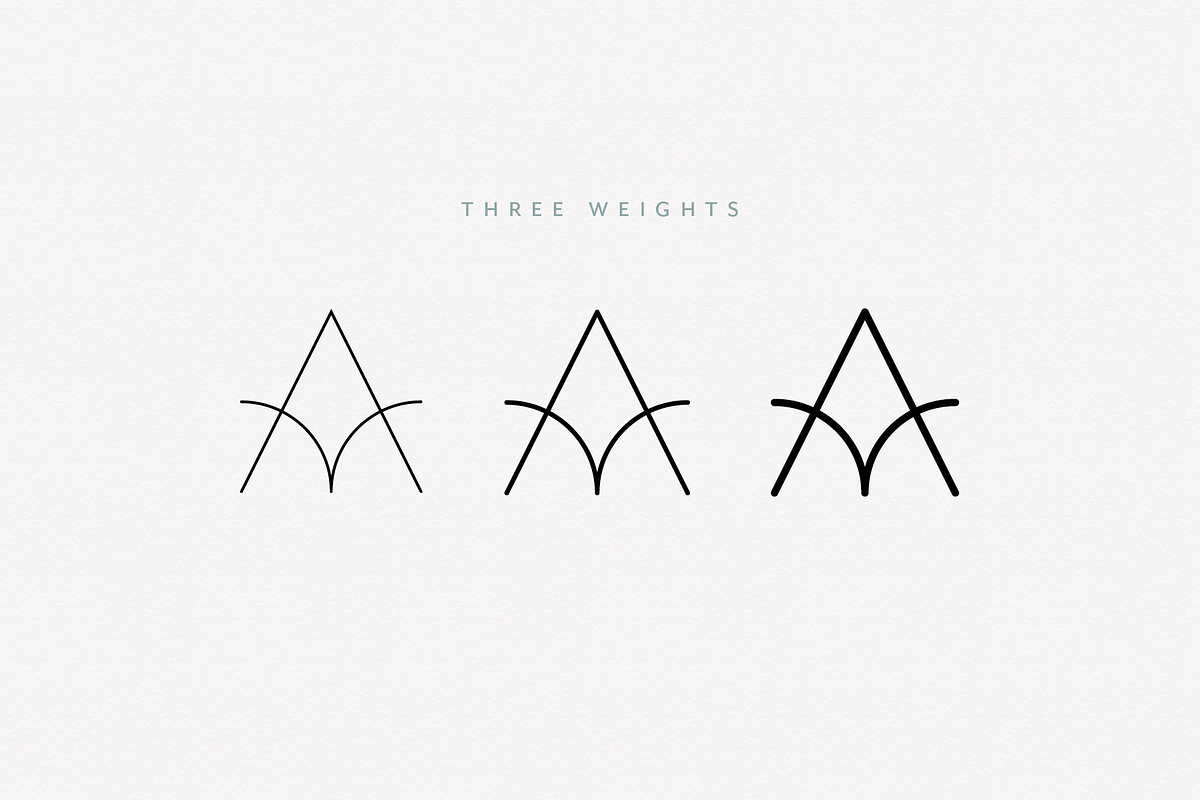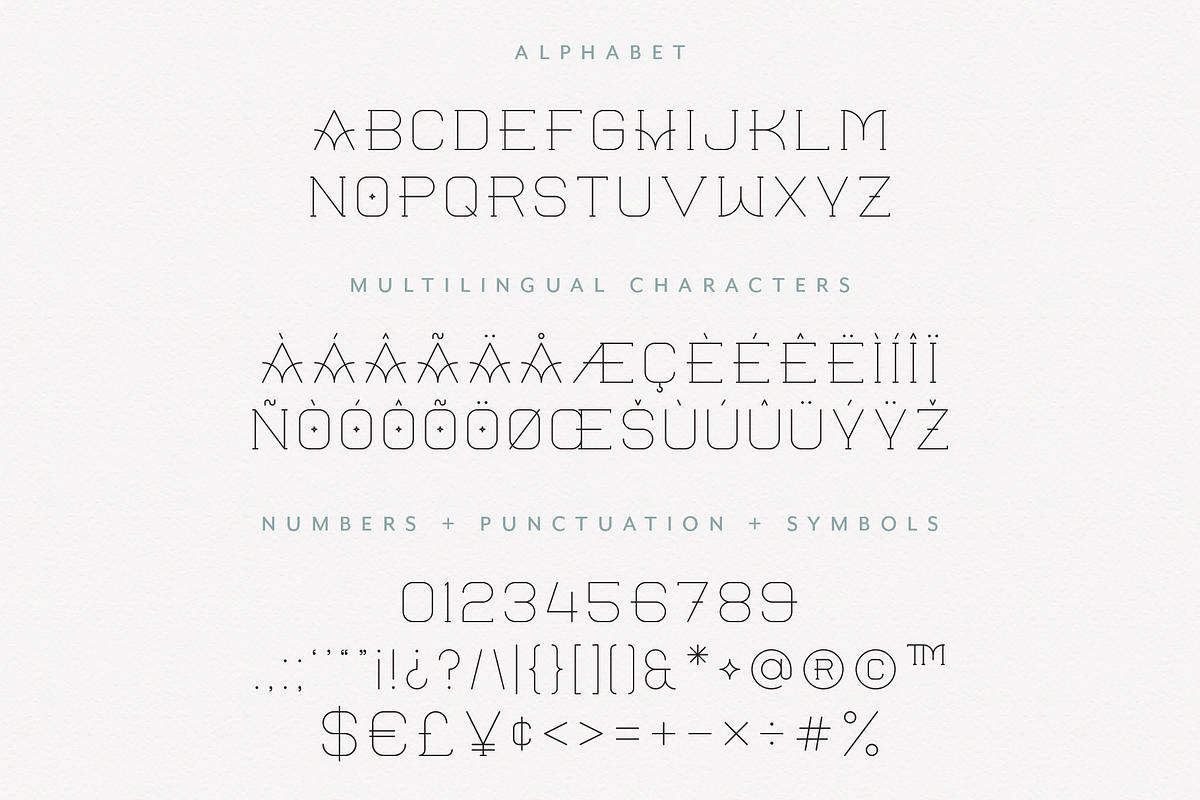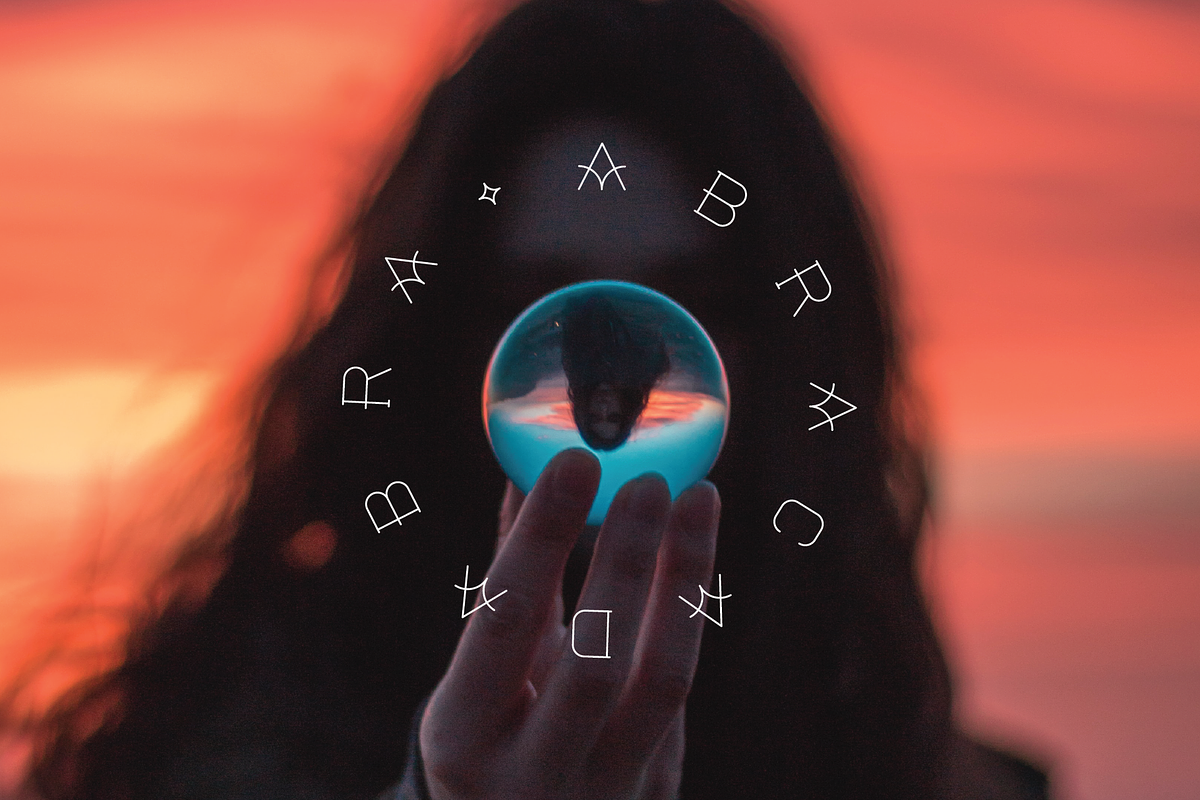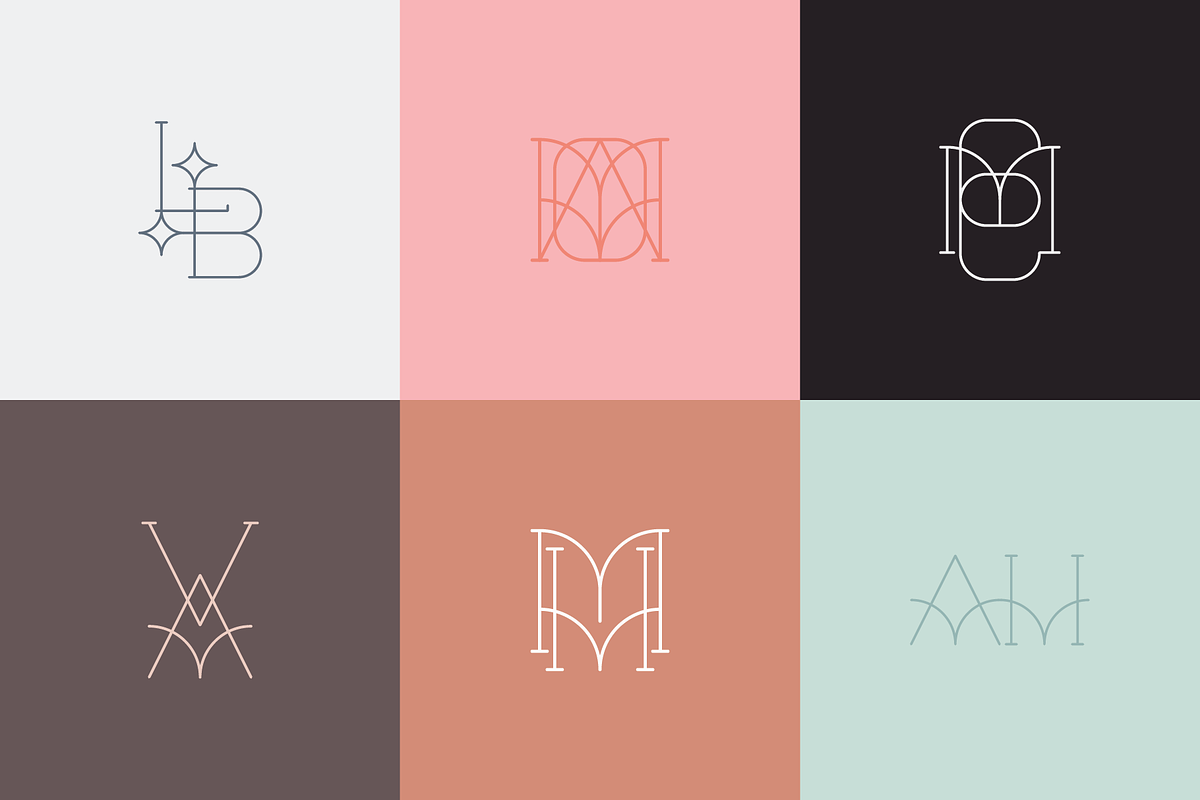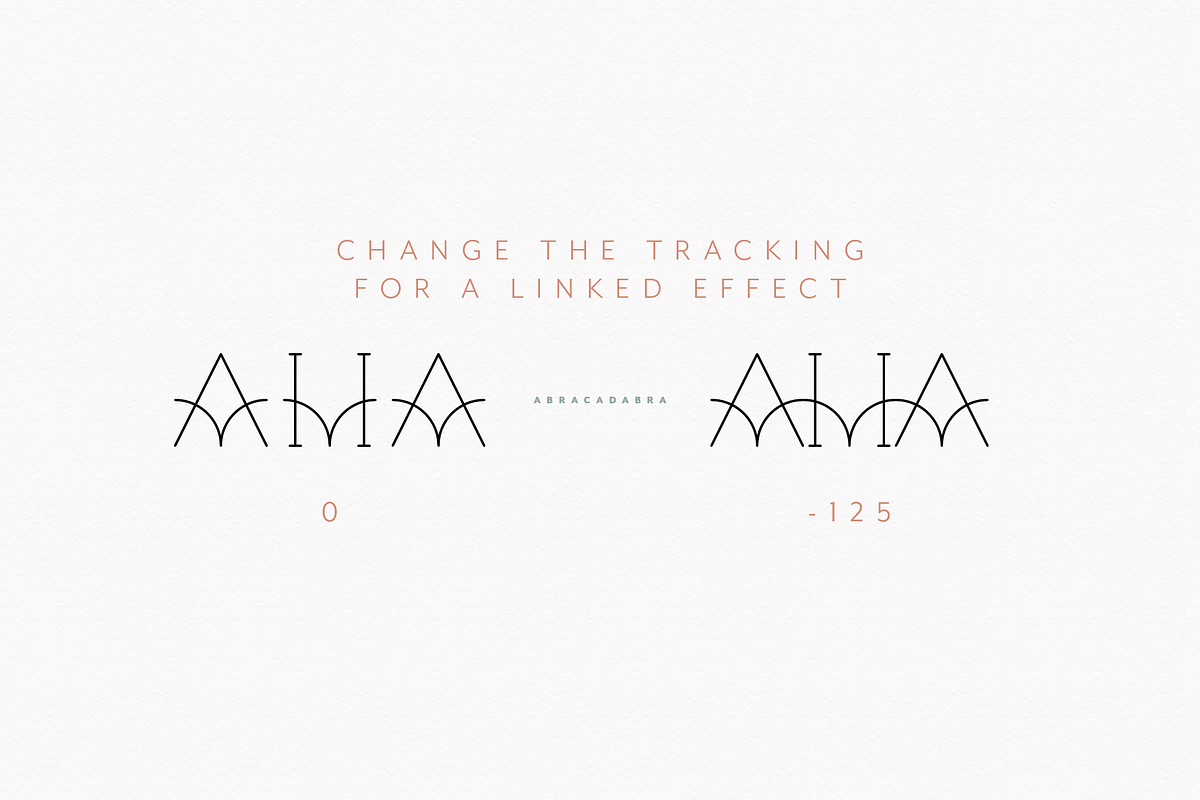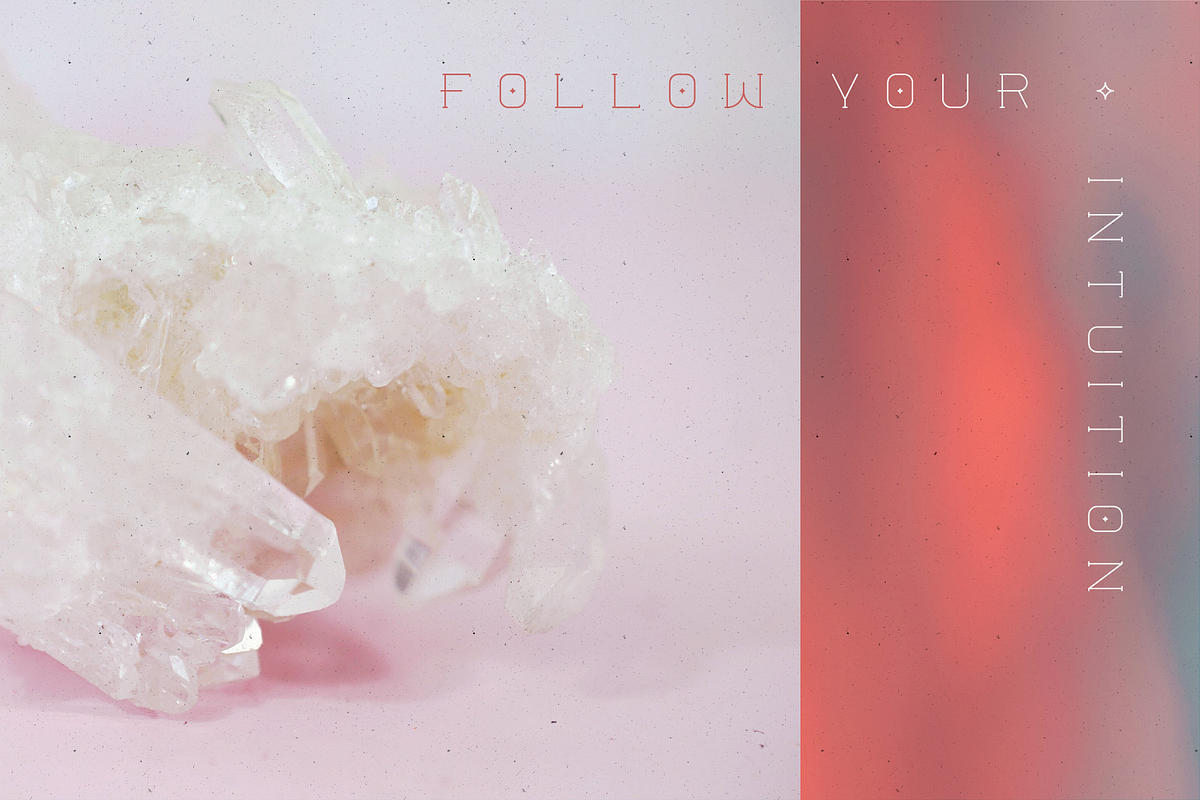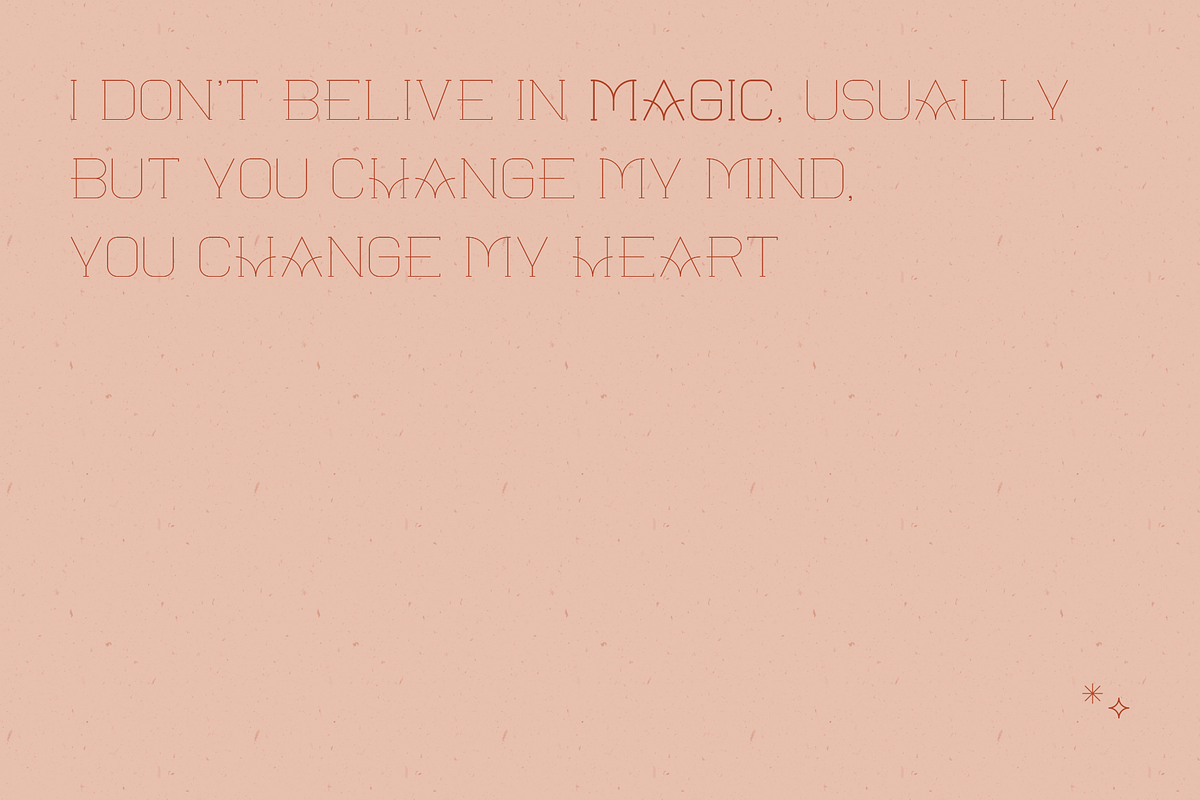
Magic All Caps Serif Monogram Font
Introducing Magic, an all caps serif display font. Magic is a unique, stylish font perfect for branding, invitations, and more. Its sleek monoline style also make it perfect for letterpress and foil.
Magically link letters together by adjusting the tracking to -125.
- Includes three weights, special characters, and multilingual support, too!
- Magic Light
- Magic Regular
- Magic Bold